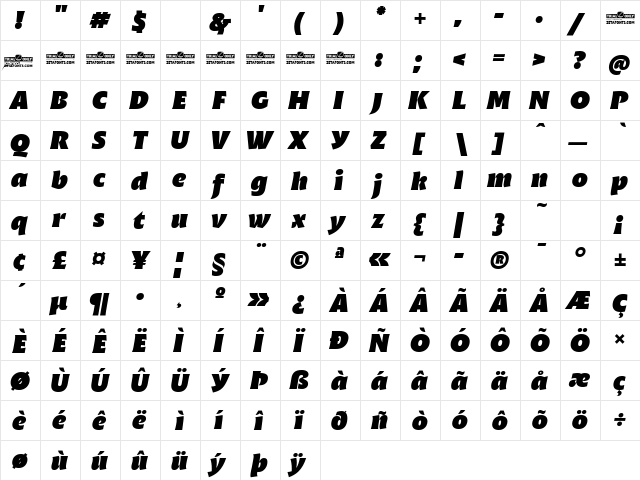
Malik Trial Heavy Display Italic
| Foundry | Zetafonts |
| Designer | Andrea Tartarelli |
Design Context for Malik Trial Typeface
Malik Trial is built around its visual character rather than neutral utility — its distinctive forms are designed to make an impression at display sizes. The slanted form adds forward momentum and visual energy.